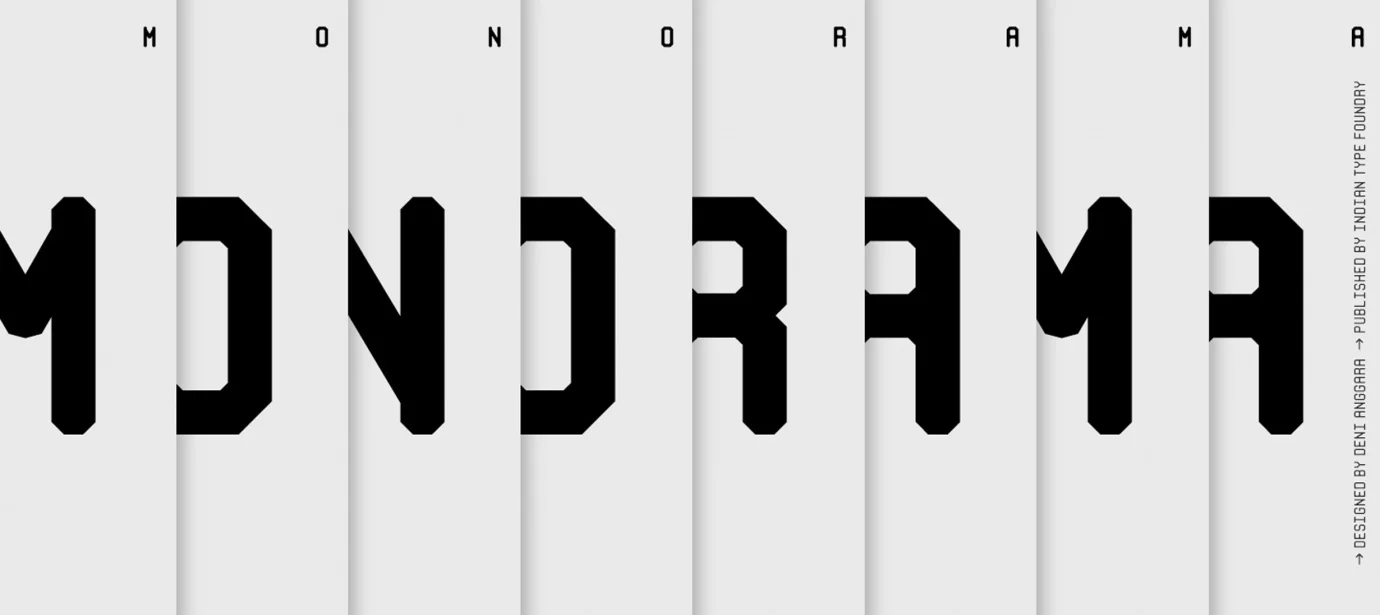
Monorama Font
Monorama Font is perfect for monospace coding platforms, programming education services, technical documentation systems, developer tool interfaces, systematic data visualization, and precision digital communications. Its uniform character makes it ideal for software development companies, coding bootcamp programs, technical writing services, data analysis platforms, cybersecurity training institutes, and any project requiring monospaced precision with technical reliability and systematic coding excellence appeal.
This font is exciting because it embodies the systematic precision and visual consistency essential for programming and technical communication while delivering exceptional functionality for organizations requiring exact character spacing and perfect alignment. The uniformly crafted letterforms ensure flawless code readability and systematic data presentation, creating typography that resonates with technical professionals who demand precision, clarity, and reliable formatting in their digital work environments.
The Monorama Font family typically includes Light, Regular, Medium, and Bold weights with coding alternates, programming ligatures, and technical elements that enhance its systematic personality. This comprehensive collection enables technical professionals to create authoritative brand systems that maintain coding credibility while offering flexibility for various programming applications requiring both technical precision and contemporary developer market positioning.
Whether you're developing identity systems for software companies, creating materials for programming education platforms, or designing interfaces for developer tools, Monorama Font delivers the technical precision and systematic appeal that connects with coding communities worldwide. Its uniform presence ensures reliable brand recognition across digital platforms and technical materials, making it perfect for websites, mobile applications, and technology campaigns that celebrate coding excellence, systematic thinking, and the transformative power of precise programming with contemporary technical standards and authentic developer-focused functionality.